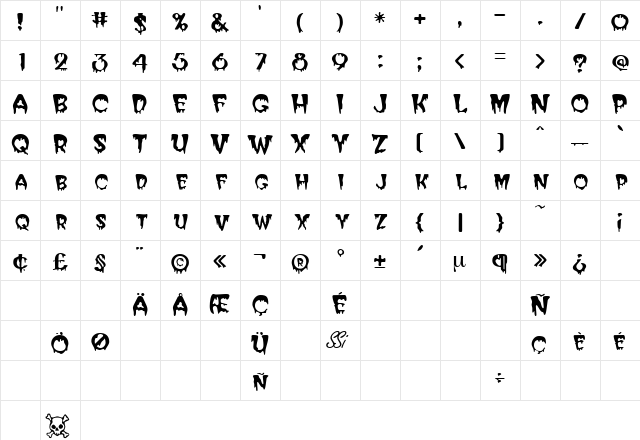
Complete BugabooSCapsSSK Regular glyph index. Displaying only characters natively supported by BugabooSCapsSSK Regular font.
BugabooSCapsSSK is a composed and adaptable typeface that performs quietly and consistently across a wide range of design contexts.